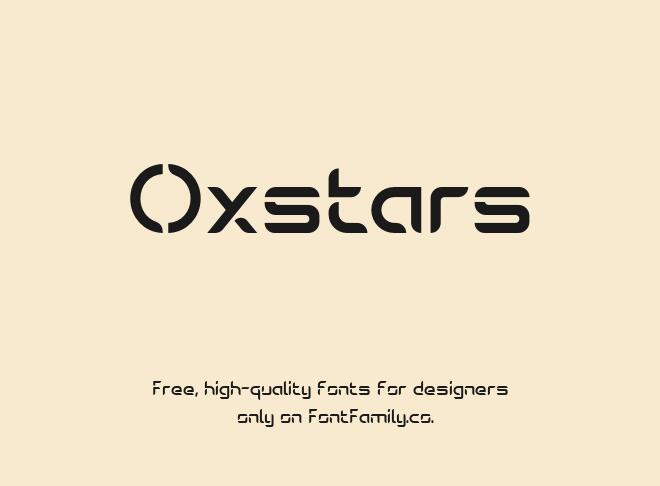
Oxstars Font
Introducing the Oxstars Font, a modern and geometric creation from Oxstars Foundry. This font, released in 2022, is a perfect blend of contemporary design and mathematical precision. The Oxstars Font stands out with its sharp edges, making it an excellent choice for display purposes. It competes favorably with other modern fonts due to its unique character design and legibility. It's an ideal choice for designers working on branding, logo design, poster design, or any project that needs a fresh and distinctive touch. The font is licensed under the Open Font License, making it free for both personal and commercial use. Choose the Oxstars Font to give your designs a unique, modern edge.